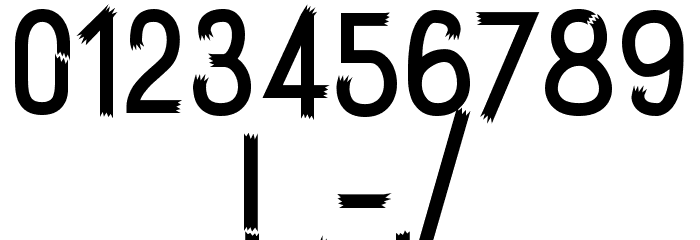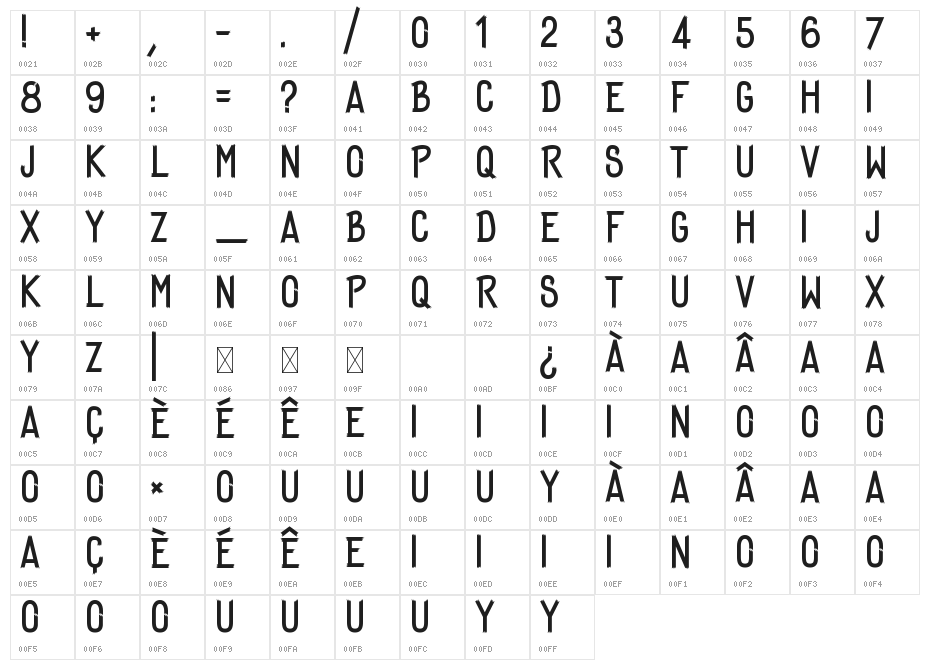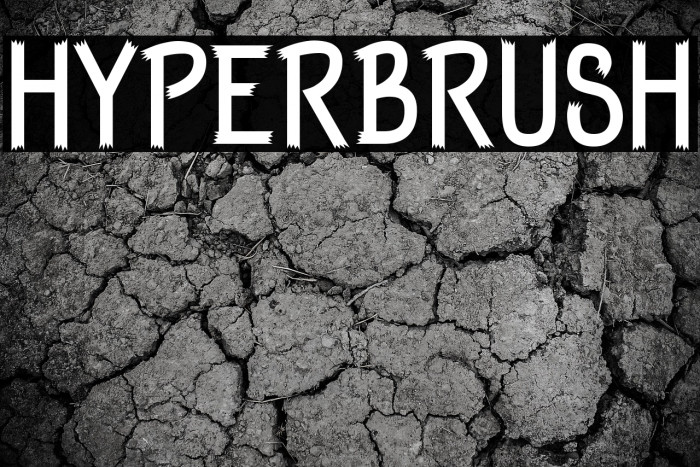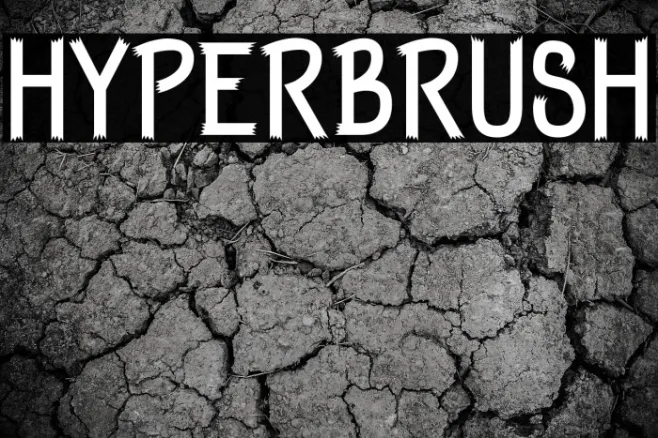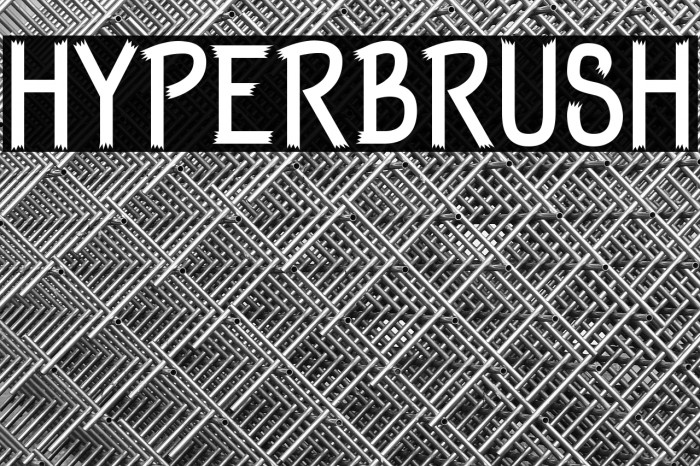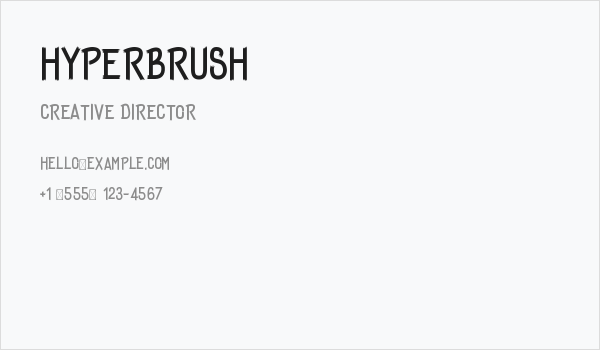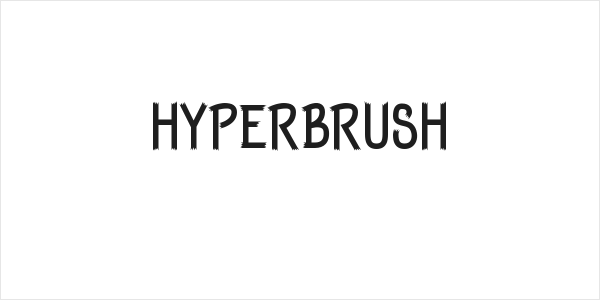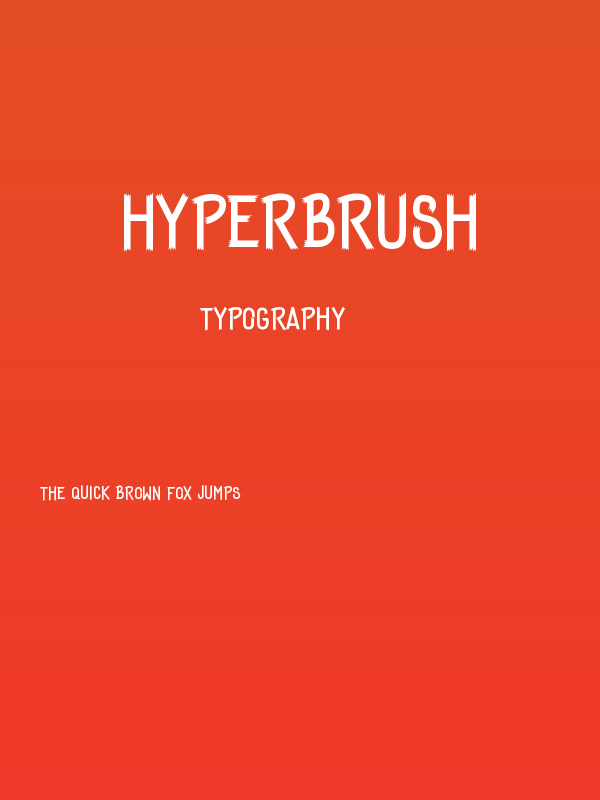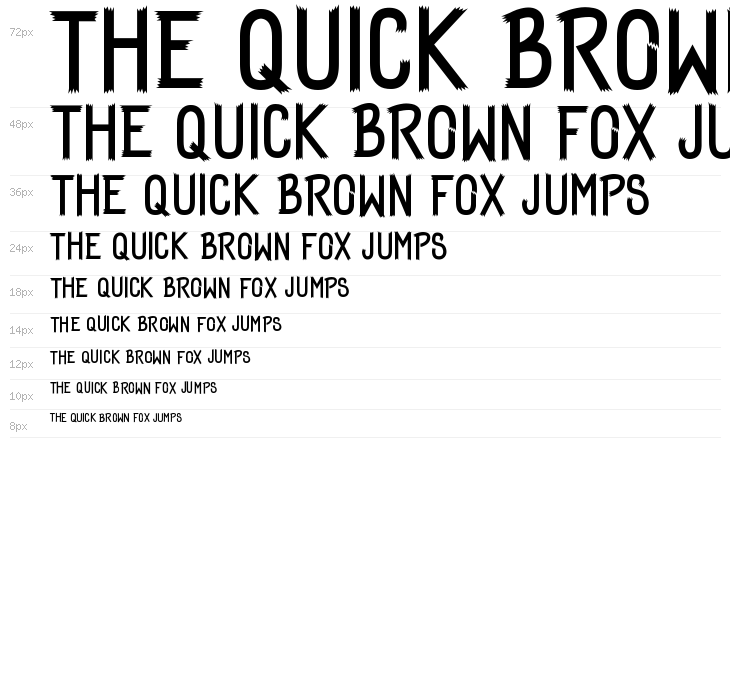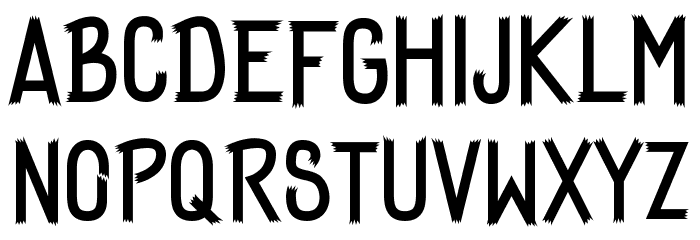
HyperBrush Font
HyperBrush Description
This font features a bold and dynamic style with sharp, brush-like strokes that give it a sense of movement and energy. The uppercase and lowercase letters are consistent in their angular design, creating a cohesive look across the alphabet. The numbers and special characters maintain this energetic aesthetic, making the font suitable for attention-grabbing designs. Its unique appearance is characterized by jagged edges and a hand-drawn feel, which adds a touch of creativity and spontaneity. The font's distinct style is ideal for projects that require a bold statement and a modern, artistic flair.
| Proposed Projects | Ideal for posters, logos, branding, and any design needing a bold, artistic touch. |